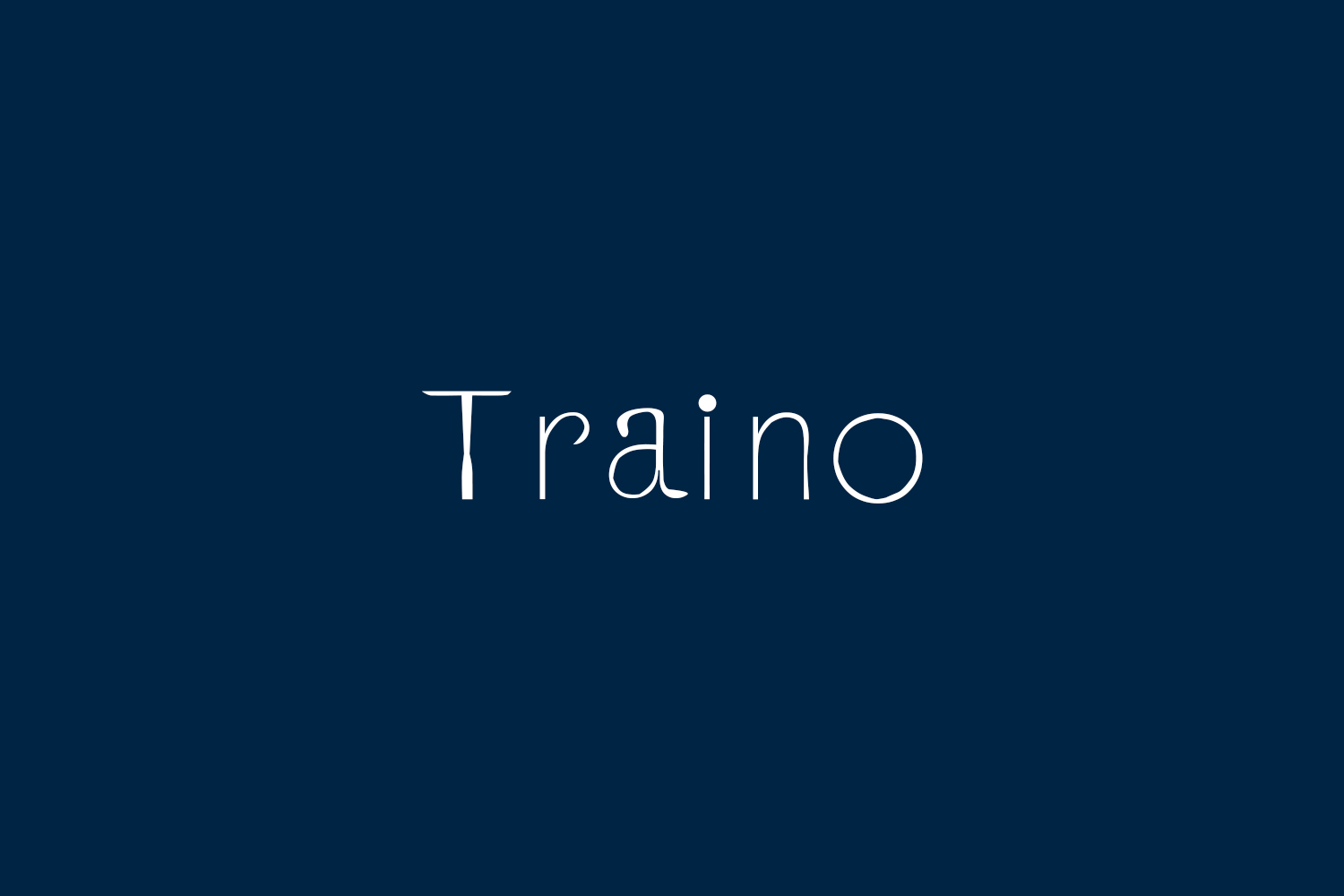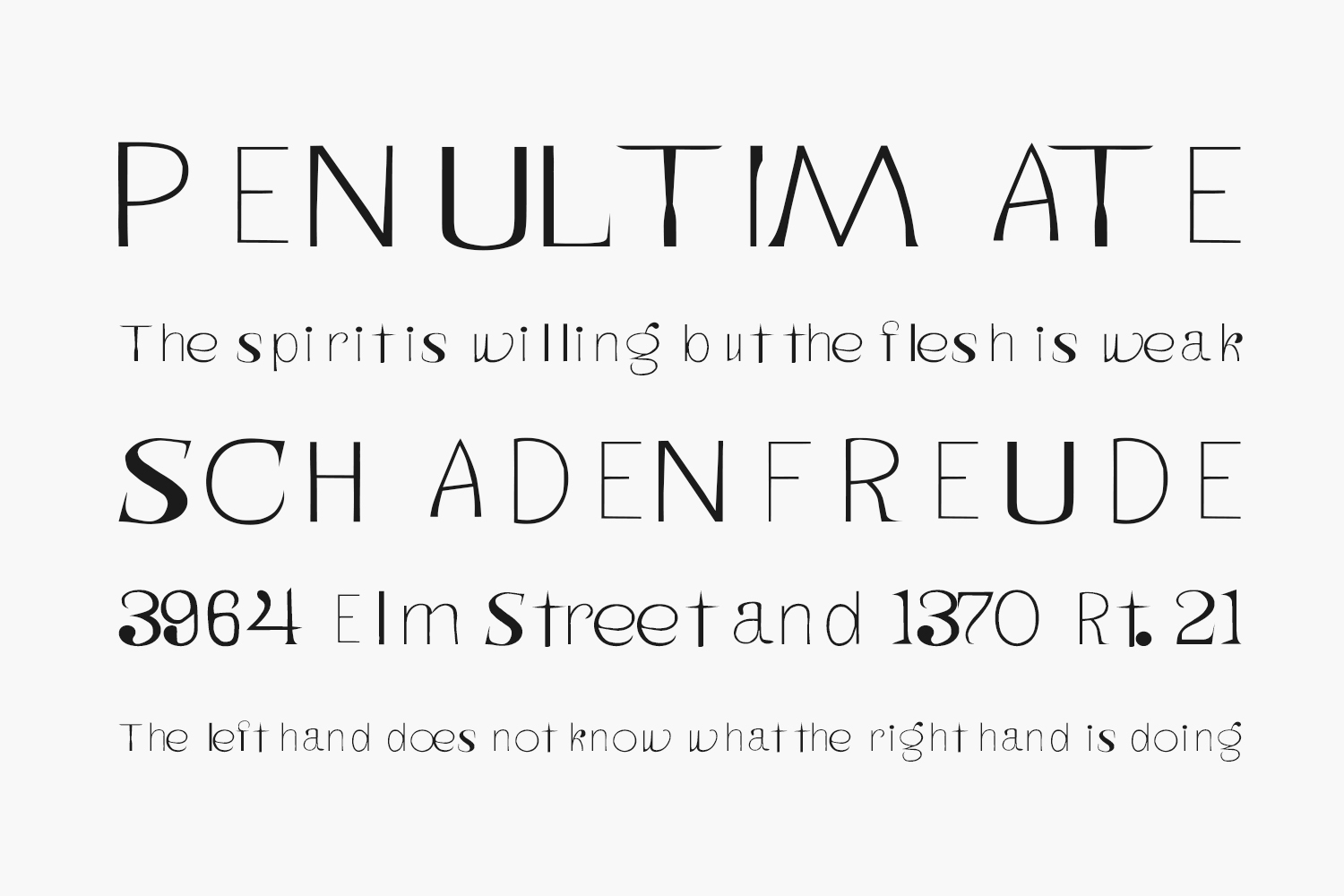
Traino Free Font was designed by CoFonts and is free for personal use only. Traino Free Font is always considered for professional card designs like business cards, wedding cards, greeting cards, and many more. You can also use this font for your office’s signatures, general reports, documentation purposes, invoices, lengthy and short paragraphs, and so on. You can also use this font for YouTube thumbnails, headlines, titles, post descriptions, headings, and some time for subheadings. Please purchase the full version for commercial use.